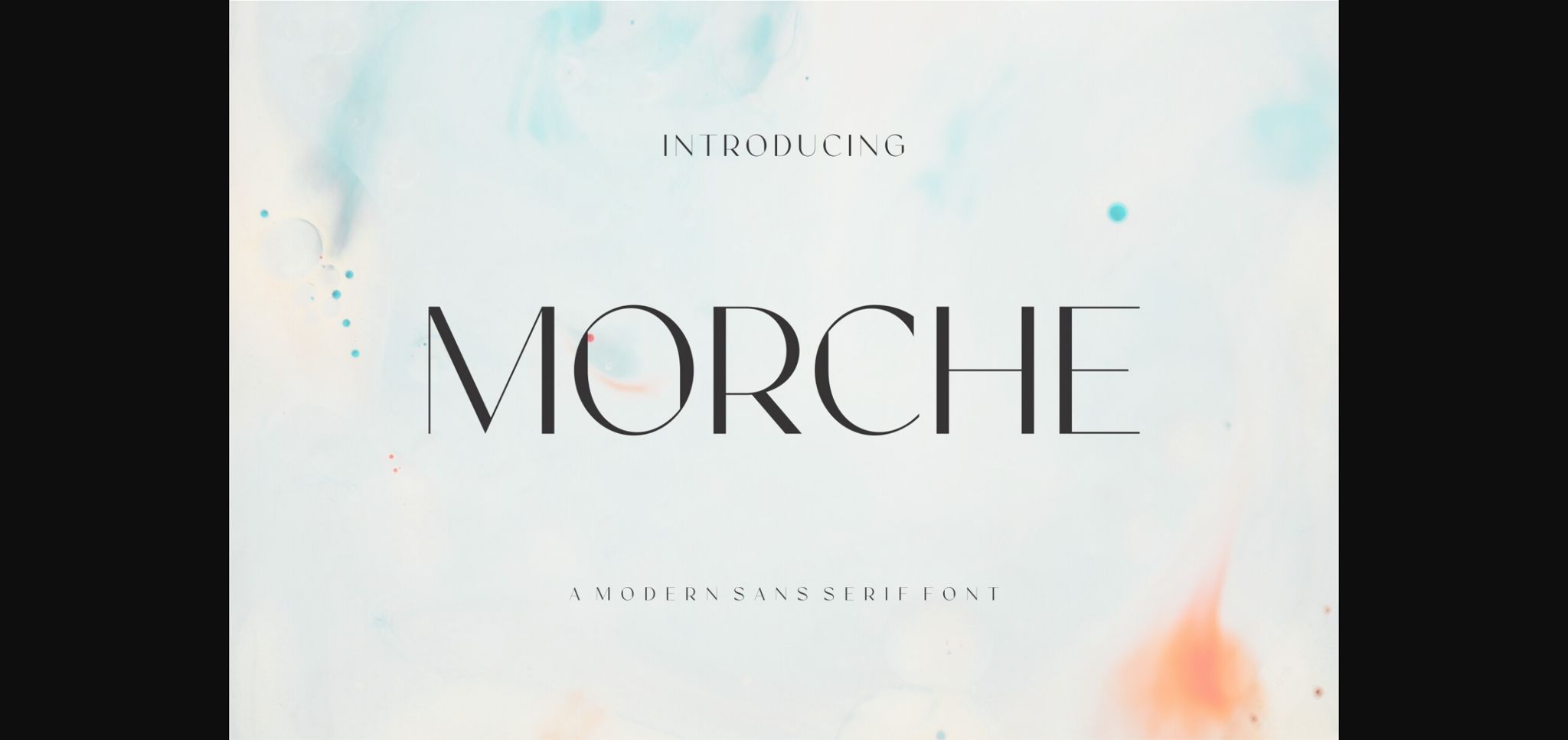
About Morche Font
Morche is a modern and elegant sans serif typeface inspired by the famous minimalist logo perfect for the purposes of designing templates, brochures, videos, advertising branding, logos, invitation, layout design, elegant crafting, beauty design and others.